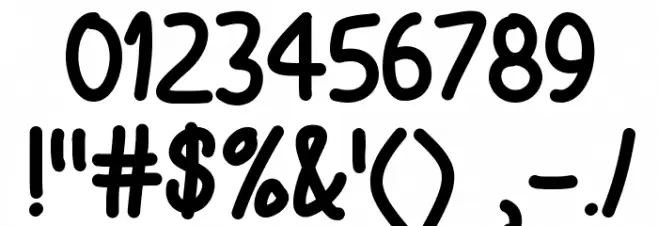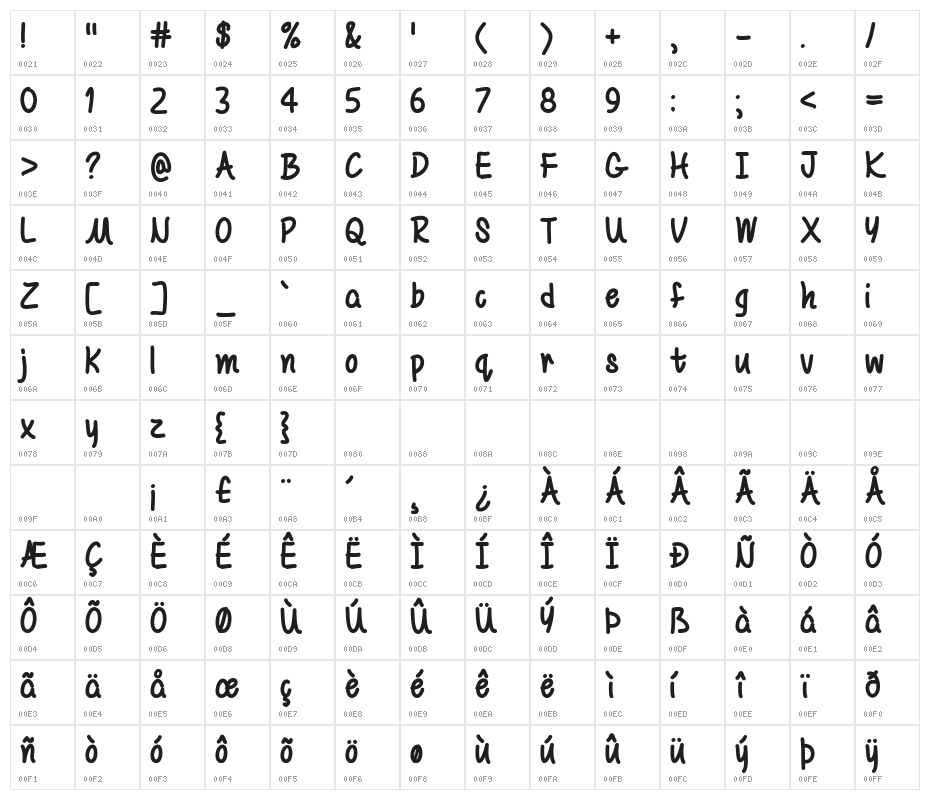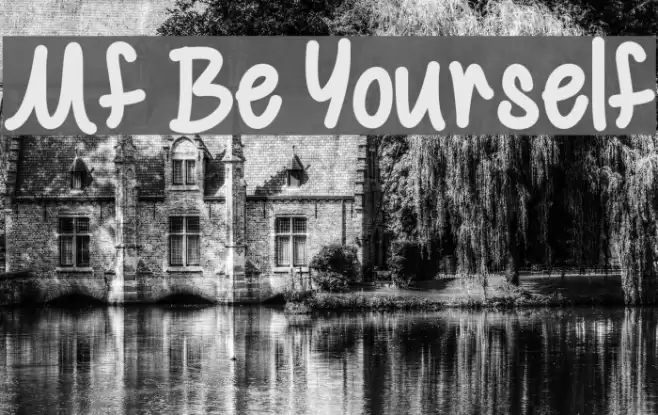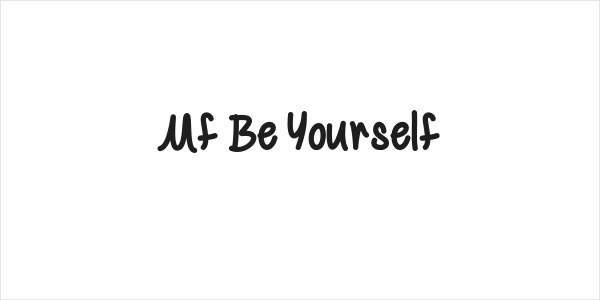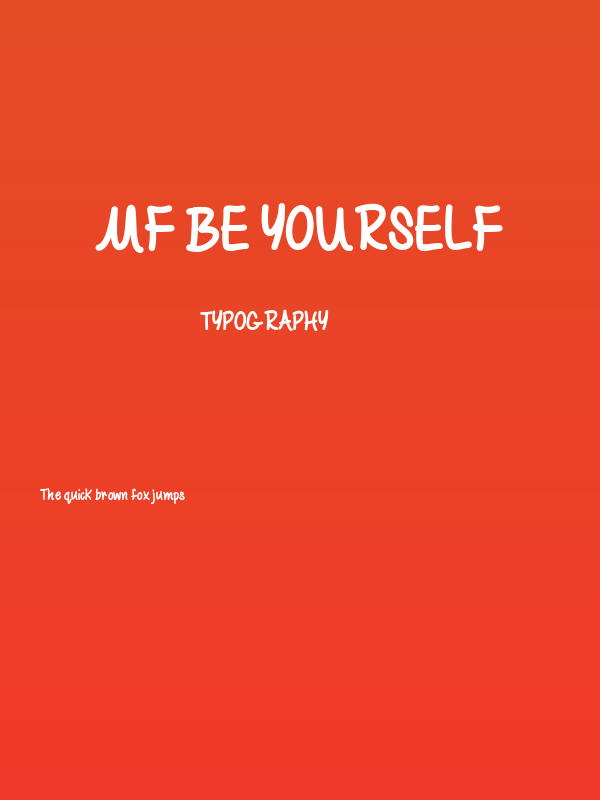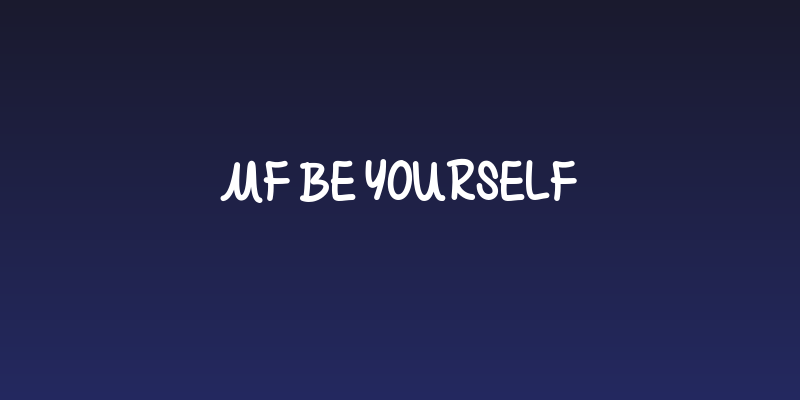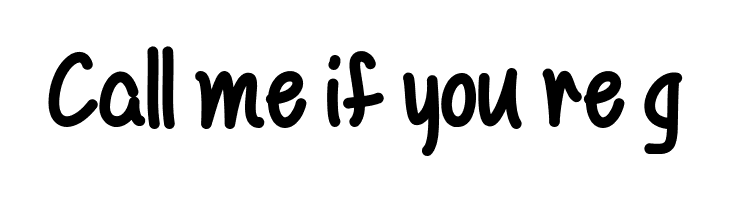
Mf Be Yourself Font
Mf Be Yourself Description
This playful and energetic font features a handwritten style with bold, rounded strokes that give it a friendly and approachable appearance. The letters are slightly irregular, adding a touch of whimsy and personality. The uppercase and lowercase characters maintain a consistent style, with smooth curves and a casual flow. Numbers and special characters are equally bold and expressive, making them stand out. This font is perfect for projects that require a personal touch or a fun, informal vibe.
| Use Case | Headlines, Logos, Informal text |
| Proposed Projects | Ideal for greeting cards, children's books, playful branding, and social media graphics. |